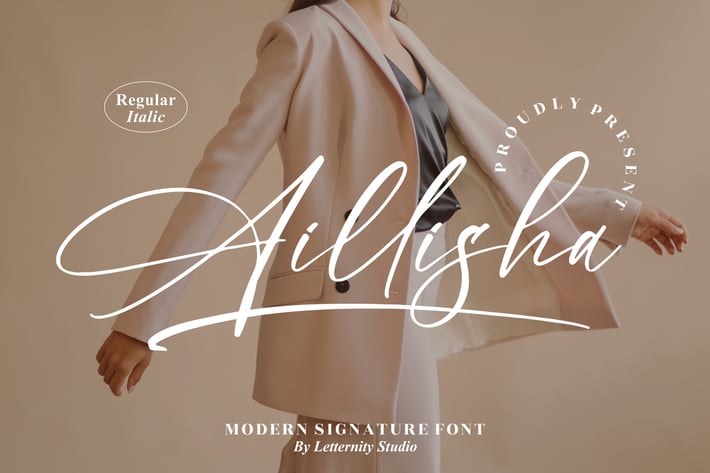
Aillisha Modern Signature Font
Aillisha is a modern signature script with sweeping, elegant strokes—perfect for adding a refined, personal touch to both digital and printed work. Its soft curves and gentle contrast create a luxe, romantic vibe while staying clean and highly legible. Balanced spacing and graceful swashes make headlines, logos, and captions feel effortless without sacrificing readability. Designed for a smooth, polished handwritten feel, it renders crisply on screens and prints beautifully at larger sizes. Use Aillisha to bring warmth, confidence, and sophistication to your brand story.
+ Two styles: Regular & Italic
+ Optimized for small and large sizes
+ Clean, flowing forms for high legibility
Perfect for:
+ Branding & visual identity
+ Logos & wordmarks
+ Social media posts
+ Posters & flyers
+ Invitations & wedding suites
+ Business cards
+ Packaging & labels
+ Quotes/lettering graphics
+ Promotions & ads
+ General design projects
Modern signature elegance that instantly elevates your brand.